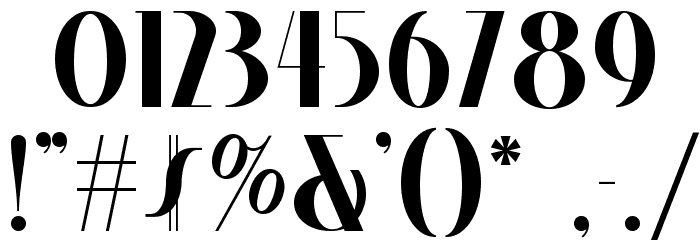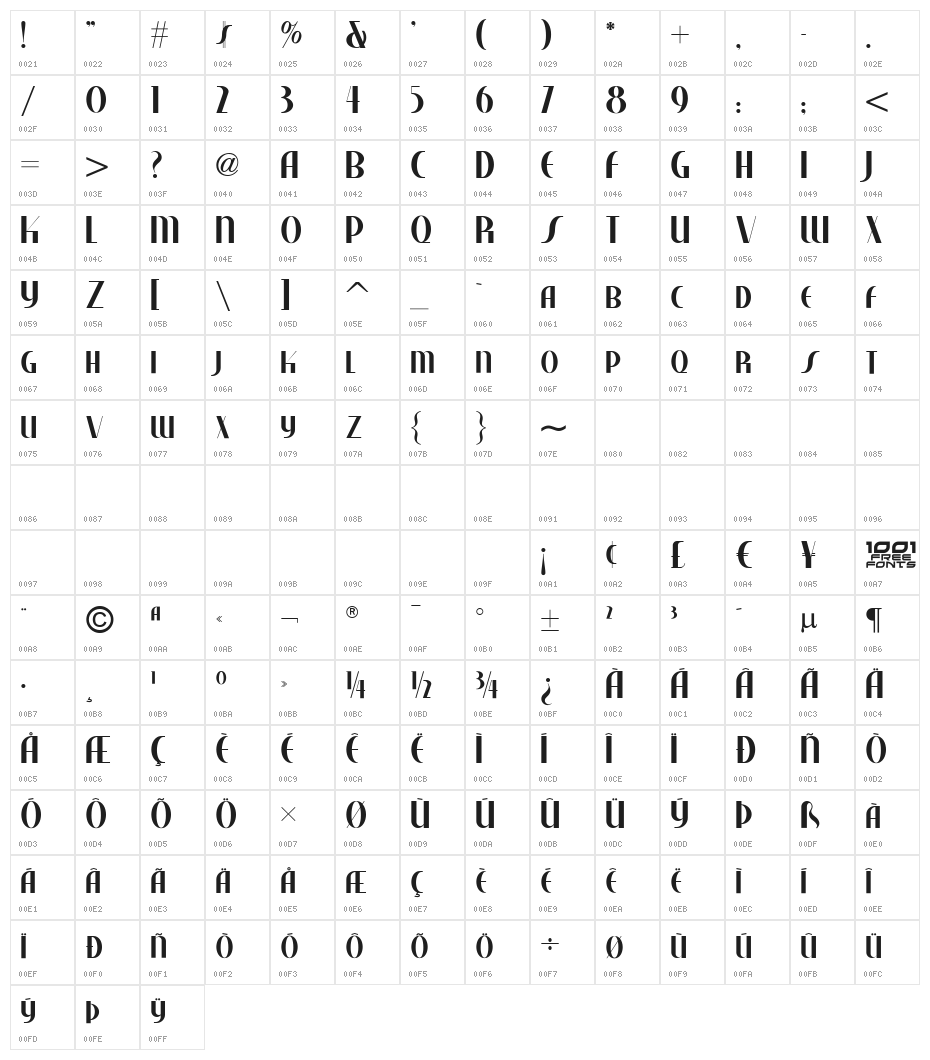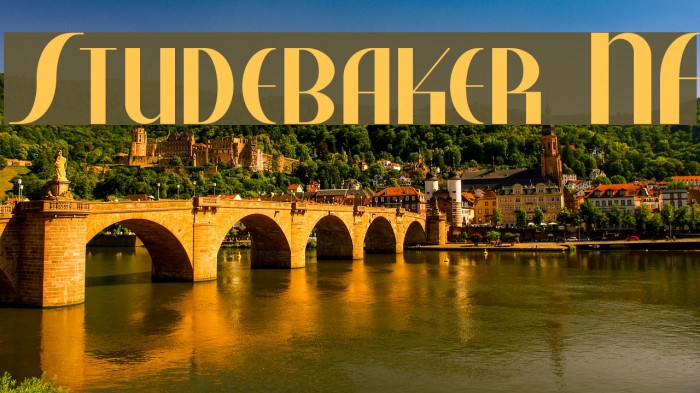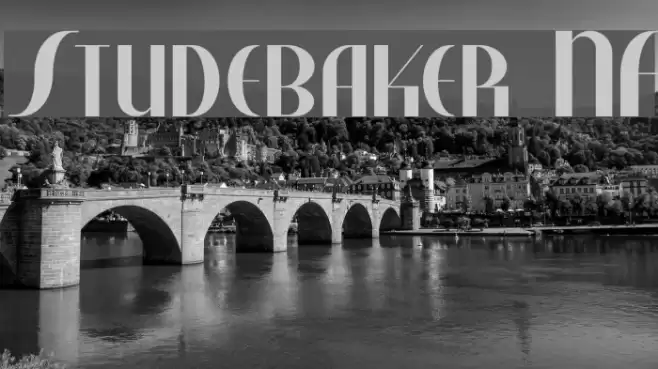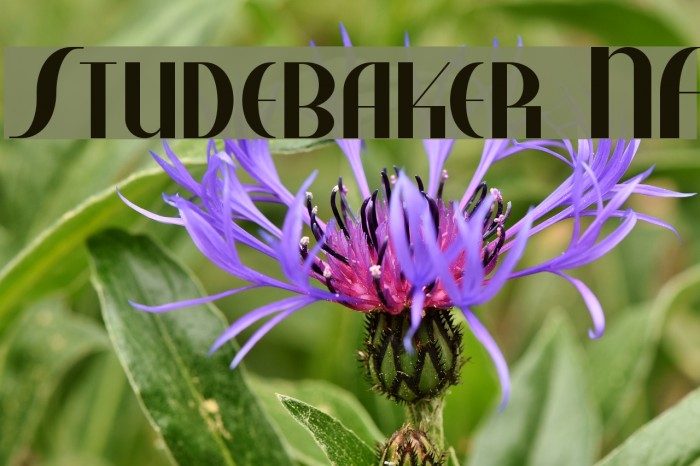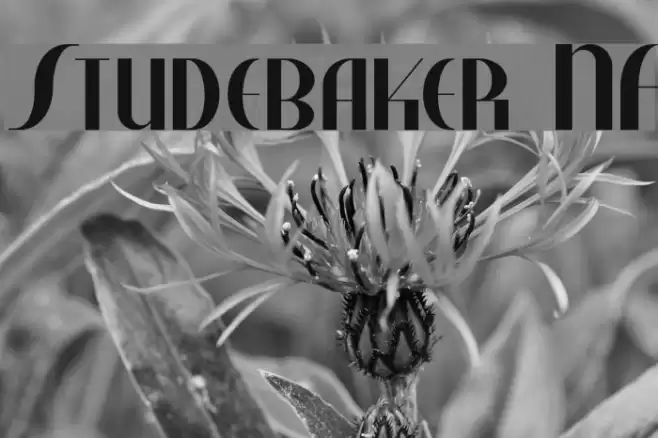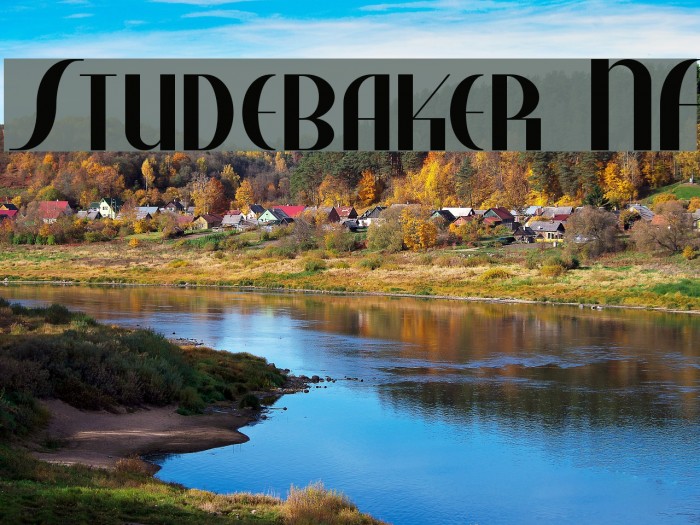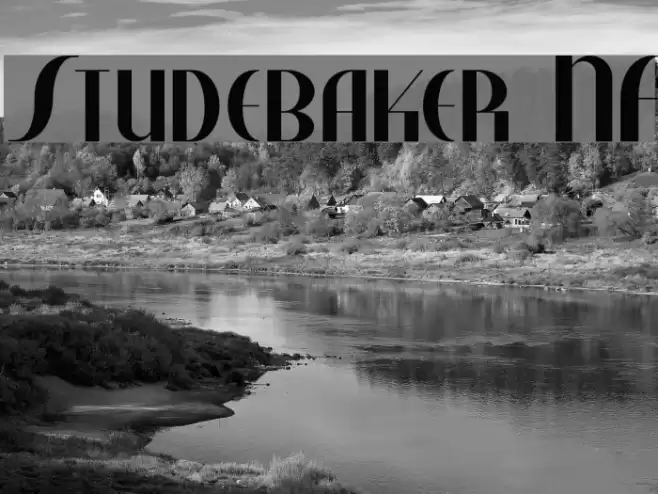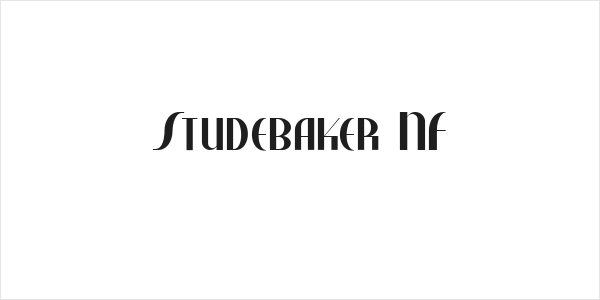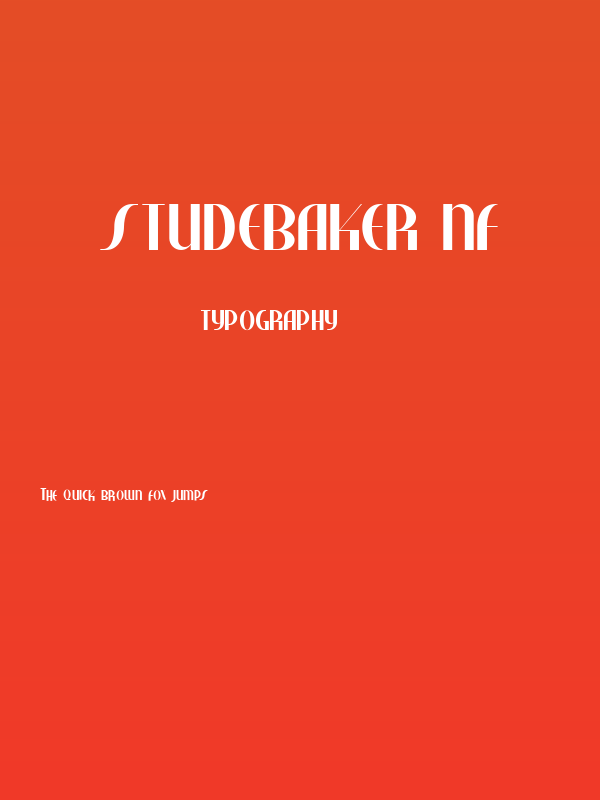
Studebaker NF Font
Studebaker NF Description
This font features a bold and striking design with a distinct Art Deco influence. The characters are tall and narrow, with a strong vertical emphasis and geometric shapes. The uppercase letters exhibit a unique blend of curves and straight lines, creating a sense of elegance and sophistication. The lowercase letters maintain the same stylistic approach, ensuring consistency across the typeface. Numbers and special characters are designed to complement the overall aesthetic, making this font versatile for various applications. The high contrast in stroke thickness adds to its dramatic appearance, making it ideal for attention-grabbing designs.